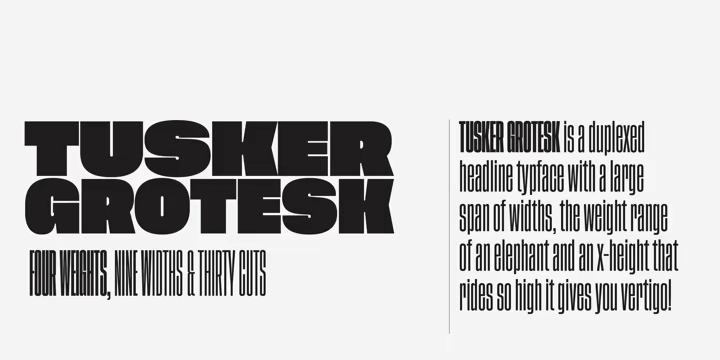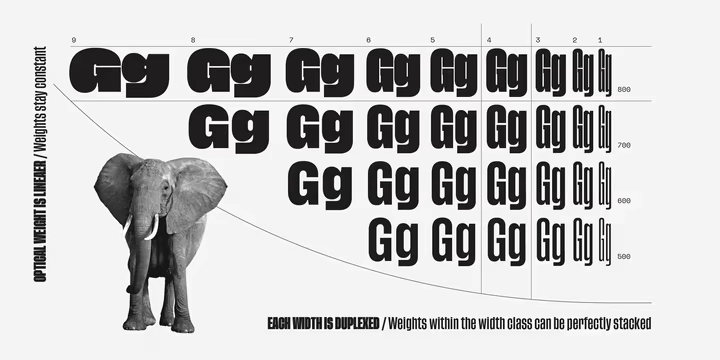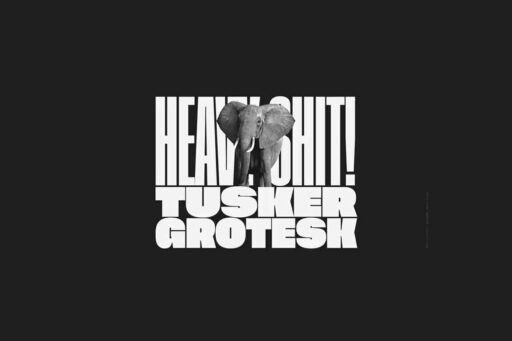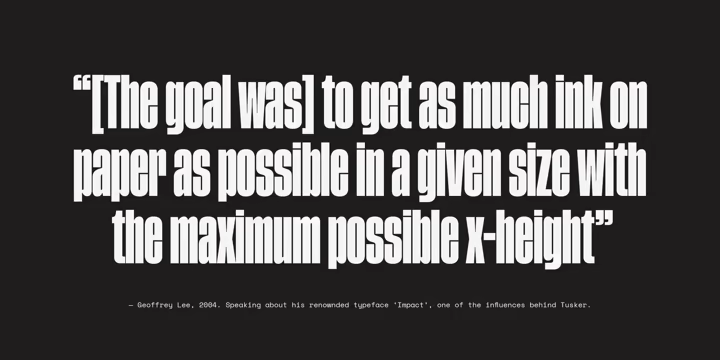
Tusker Grotesk Font Family
Tusker Grotesk delivers high-impact visuals with its bold and powerful design. It draws inspiration from postwar fonts like Haettenschweiler, Impact, and Helvetica Inserat. With a high x-height, it ensures maximum readability.
The condensed styles take cues from old grotesques like Folio Extra Condensed and Stephenson Blake Elongated Sans No.1. Wider widths borrow elements from gothic sans fonts like Inland Type’s Title Gothic No.8.
Each width has a duplexed and stackable design, making it perfect for headlines, logos, and bold editorial layouts. Tusker supports extended Latin characters, covering multiple European languages.